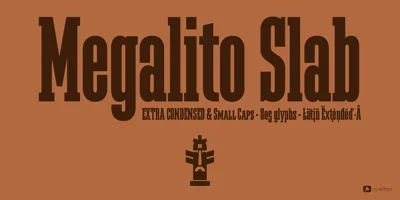
Megalito Slab Font
Megalito Slab Font is perfect for architectural branding, construction company logos, monument signage, stone masonry businesses, historical preservation projects, museum exhibitions, memorial inscriptions, civil engineering firms, and monumental design communications. This powerful typeface brings architectural permanence and monumental strength to projects requiring solid typography with enduring appeal and timeless gravitas.
What makes Megalito Slab Font exciting is its monumental presence that embodies the eternal strength of stone architecture and ancient craftsmanship with remarkable solidity and enduring character that stands the test of time. The font features robust slab letterforms with architectural precision and monumental proportions that reflect the permanence of megalithic structures and stone masonry excellence. Its timeless personality and solid foundation make it irresistible for architectural firms seeking typography that communicates durability while honoring the craft of stone building and monumental construction traditions.
The Megalito Slab Font family includes architectural weights and monumental styles: Light, Regular, Medium, Bold, Black, and carved variations with stone alternates and architectural symbols. Each weight maintains the font's solid character while offering designers complete flexibility for architectural branding and monumental design applications requiring structural integrity and timeless presentation.
Whether you're designing for construction companies or architectural studios, Megalito Slab Font provides designers with a solid, architecture-focused typeface solution. The font's monumental aesthetics and structural styling make it ideal for stone masons, construction firms, architectural preservation societies, and monument designers. Its enduring presence ensures your message communicates permanence and craftsmanship while maintaining excellent architectural readability. The comprehensive character set includes stone symbols and architectural notation, making it perfect for creating lasting headlines and brand identities that celebrate building traditions and establish memorable connections with audiences seeking durable construction solutions and timeless architectural excellence.